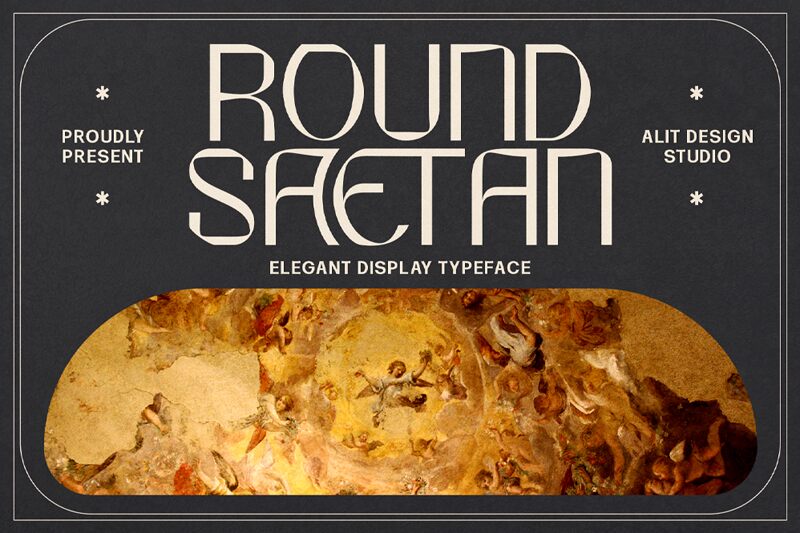
Round Saetan by Alit Design is a modern display font that exudes subtlety and sophistication with its semi-light weight and semi-expanded width. Perfect for projects that require a touch of elegance, this font is ideal for creating eye-catching headlines, logos, and branding materials. Whether you're designing for high-end fashion, beauty products, or luxury services, Round Saetan's unique style will elevate your designs to the next level. Its clean lines and rounded shapes make it easy to read even at smaller sizes while maintaining its refined look. Give your projects a touch of class with Round Saetan!